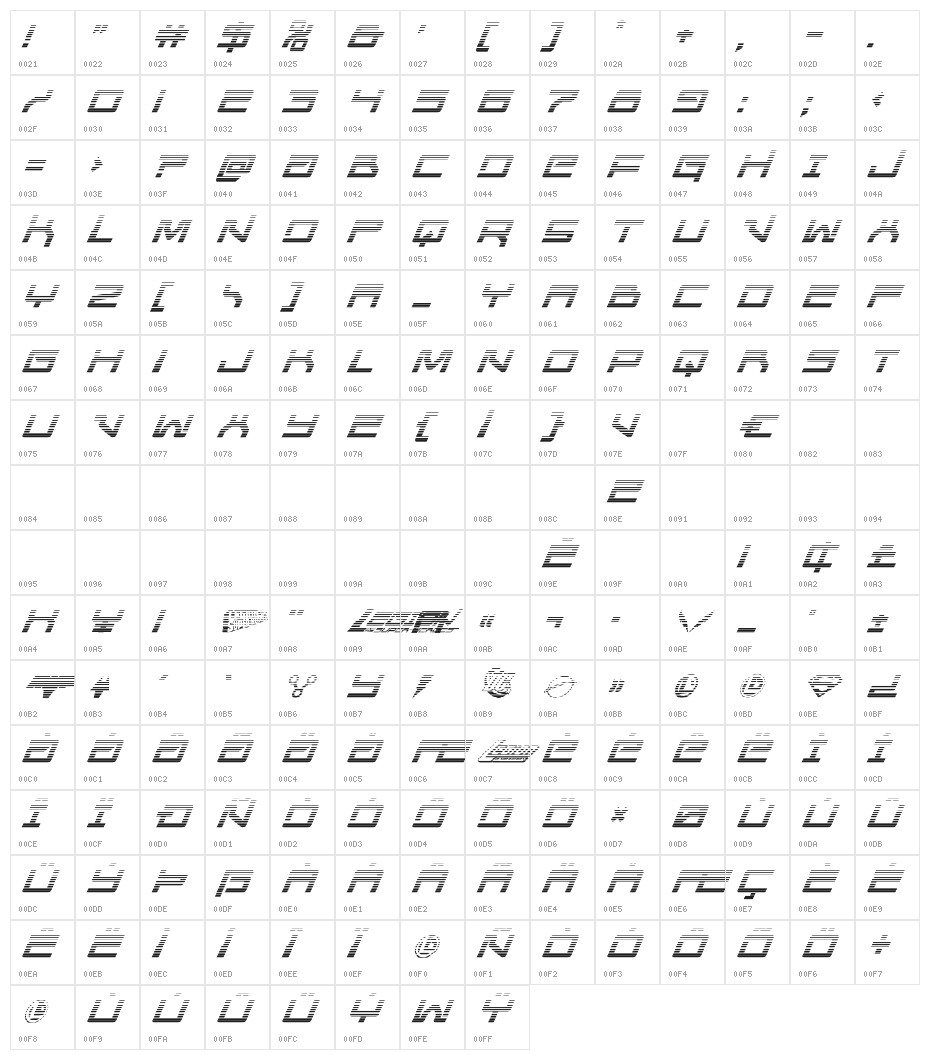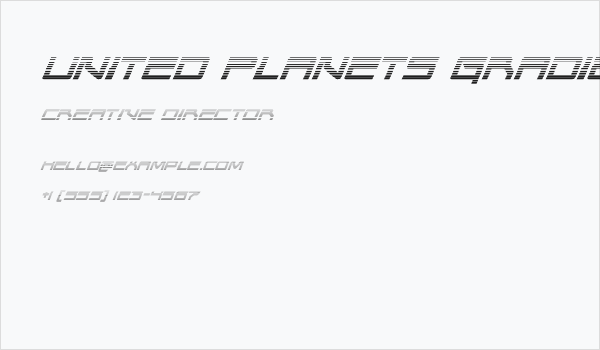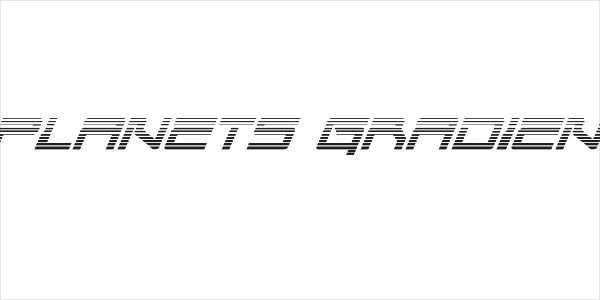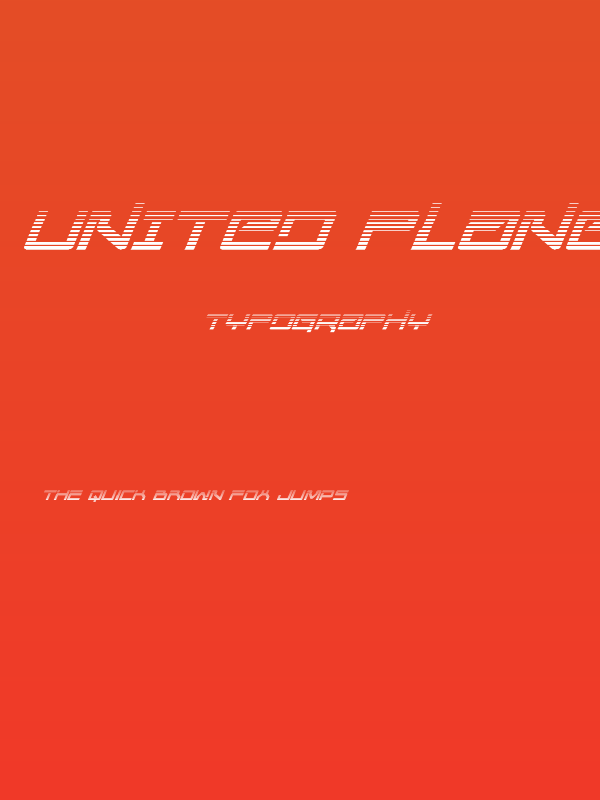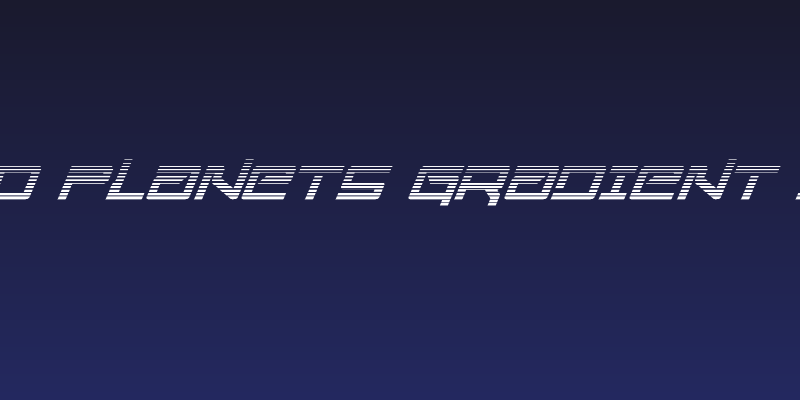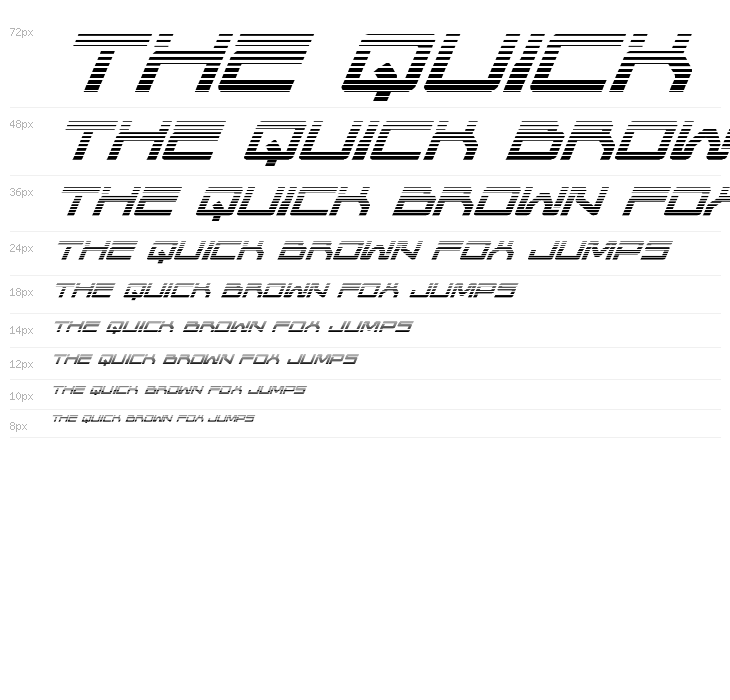
United Planets Gradient Italic Font
This font features a futuristic and dynamic design with a distinct italic slant, giving it a sense of motion and speed. The characters are composed of multiple horizontal lines, creating a gradient effect that enhances its modern and technological appearance. The uppercase and lowercase letters maintain a consistent style, with sharp angles and clean lines. The numerals and special characters follow the same design principles, ensuring uniformity across all glyphs. This font is ideal for projects that require a cutting-edge and innovative look, such as technology branding, sci-fi themes, or digital interfaces.
| Proposed Projects | Ideal for technology branding, sci-fi movie posters, digital interfaces, and video game titles. |